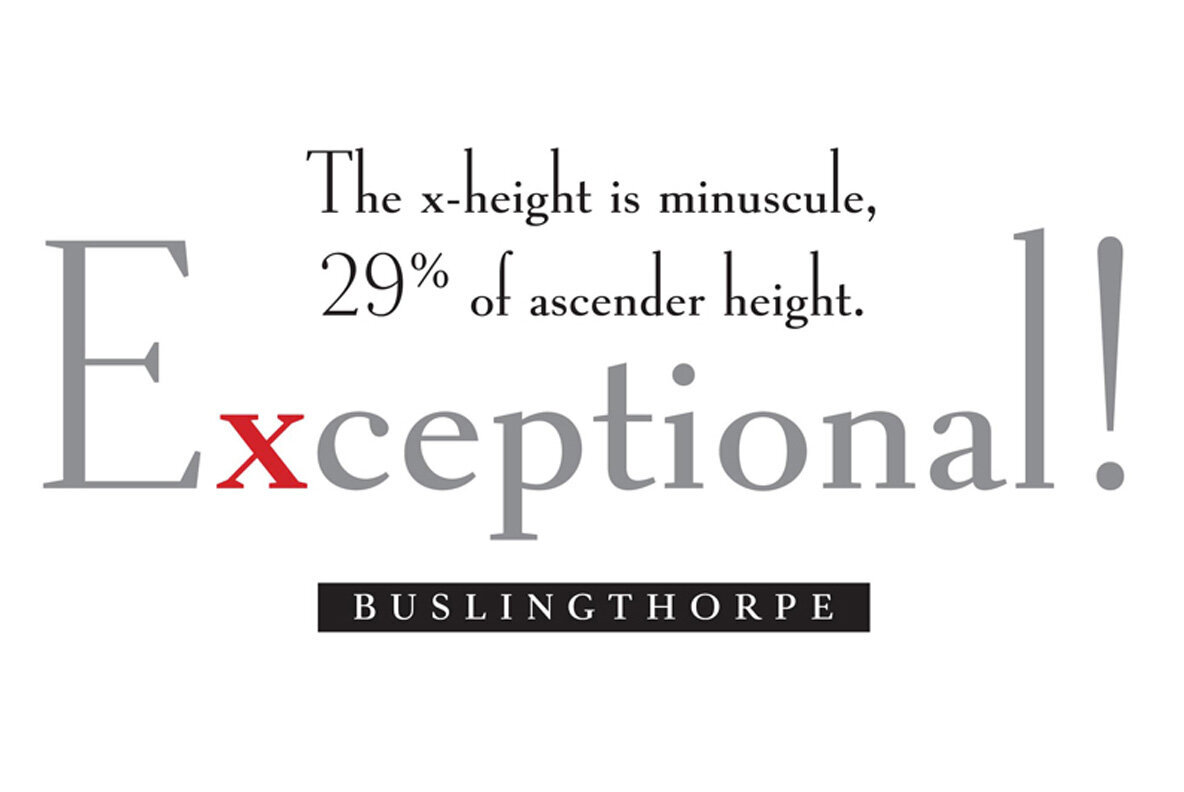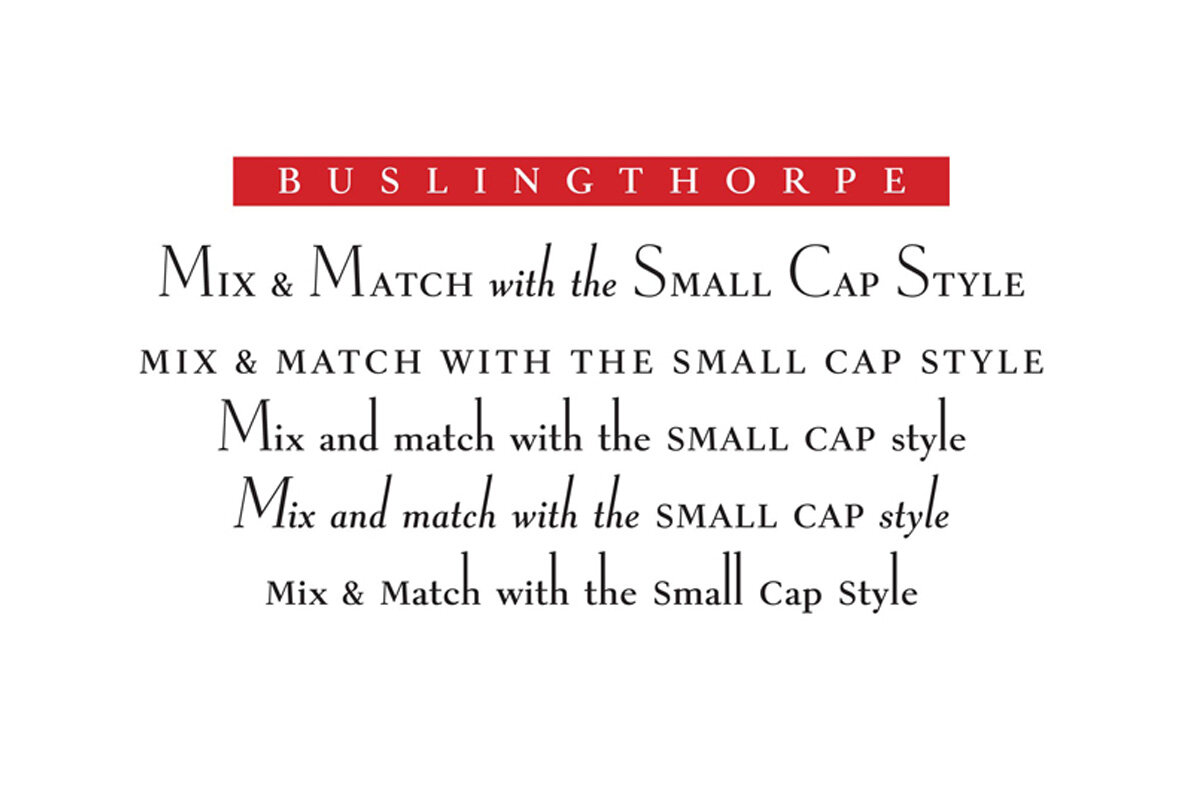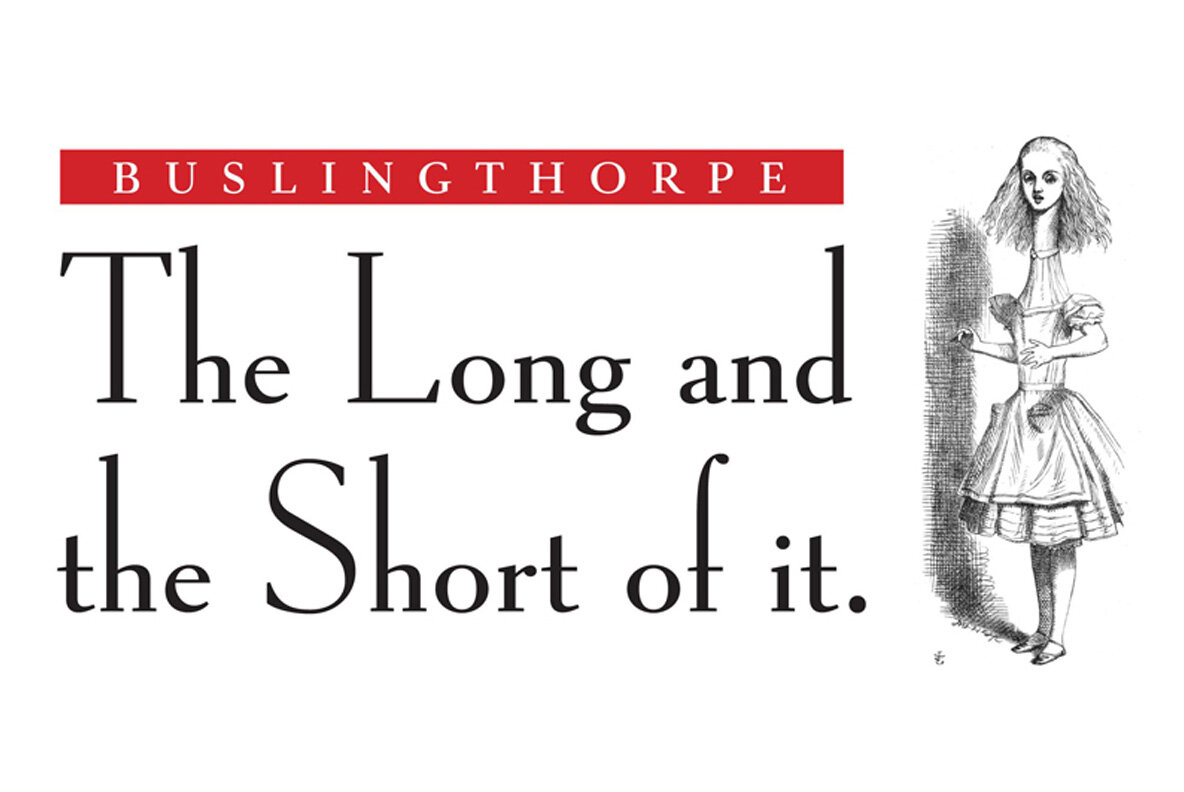
Buslingthorpe Font
With its extreme proportions (the x-height is 29% of ascender height), Buslingthorpe is informed by two iconic early 20th century designs from the heyday of the tiny x-height genre, Koch Antiqua (Rudolf Koch, Klingspor Foundry, 1922) and Lucian (Lucian Bernhard, Bauer Foundry, 1925). However, the style of the letters is quite conventional—crisp and transitional.